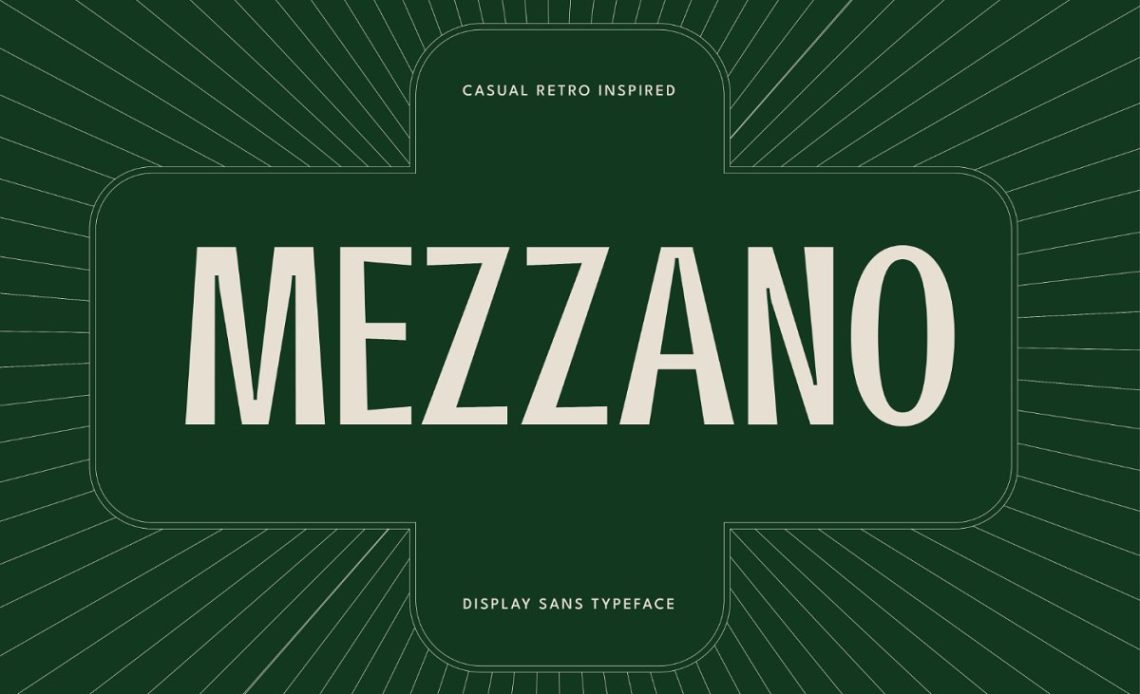
Introducing Mezzano - Casual Retro Display Font, the ultimate choice for anyone seeking a touch of vintage charm combined with a contemporary twist. Created by the renowned Surplus Type Co., this font family is specifically designed to captivate and inspire.
Mezzano is not just your average font. It is a classic retro-inspired sans serif display font that effortlessly blends timeless elegance with a hint of personality. Whether you're working on a book title, editorial design, web project, or social content, Mezzano will elevate your typography to new heights.
What sets Mezzano apart from the rest is its extensive range of ligatures. These delightful and carefully crafted ligatures add a touch of uniqueness to your text, making it stand out from the crowd. With Mezzano, your design will possess an irresistible allure that will leave a lasting impression on your audience.
Moreover, Mezzano boasts multilingual support, allowing you to seamlessly create captivating content in various languages. Break the barriers of communication and expand your reach by utilizing this font's international versatility. Connect with a global audience and make your message resonate across borders.
But Mezzano is not just about aesthetics; it's about enhancing your overall user experience. This font is meticulously crafted to ensure legibility and readability, even at small sizes. Your audience will have no trouble engaging with your content, absorbing every word with ease.
Experience the joy of Mezzano's versatile applications. From book covers that exude elegance and sophistication to web designs that demand attention, this font has got you covered. Let your creativity flow and watch as Mezzano breathes life into your projects.
But don't just take our word for it - let the emotions speak for themselves. Mezzano is a font that evokes a sense of nostalgia, transporting your audience to a bygone era. It creates a connection, stirring up emotions of familiarity and comfort. It's the font that tells a story, adds character, and leaves an indelible mark on every design it graces.